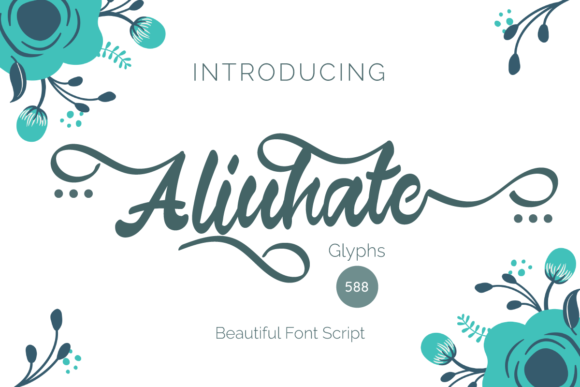
The Aliuhate Font: A Romantic and Sweet Script Font for Your Creative Projects
Have you ever been in the middle of a design project, and suddenly, you just can’t seem to find the right font? I recall a particularly frustrating experience when I was working on a wedding invitation design. My client wanted something elegant, yet casual, and I was determined to deliver. That’s when I stumbled upon the Aliuhate font, and it completely transformed my design.
A Personal Review of Aliuhate Font
The Aliuhate font is a romantic and sweet script font that has become a staple in my design toolkit. Here’s what I love about it:
• ✨ Elegant and casual at the same time, making it perfect for a variety of projects
• ✅ PUA encoded, which means easy access to all glyphs and swashes
• 💃 Character designs that dance gently in every curve, giving it a whimsical feel
• 📝 Perfect for logos, wedding invitations, titles, t-shirts, letterheads, signage, labels, news, posters, badges, and more
While Aliuhate is an amazing font, it’s not without its quirks. Here are a few things to keep in mind:
• 🤔 Some users might find the font a bit too delicate for certain projects
• ⚠️ As with any script font, it may not be suitable for very small font sizes or body text
The Story Behind Aliuhate
The Aliuhate font was designed with love and care by a talented type designer who wanted to create a font that would evoke feelings of romance and sweetness. Inspired by the gentle curves of nature and the elegance of handwritten scripts, Aliuhate was born. Today, it’s a popular choice among designers and crafters who appreciate its unique charm.
Q: What is the Aliuhate font best used for?
A: Aliuhate is perfect for a variety of projects, including logos, wedding invitations, titles, t-shirts, letterheads, signage, labels, news, posters, badges, and more.